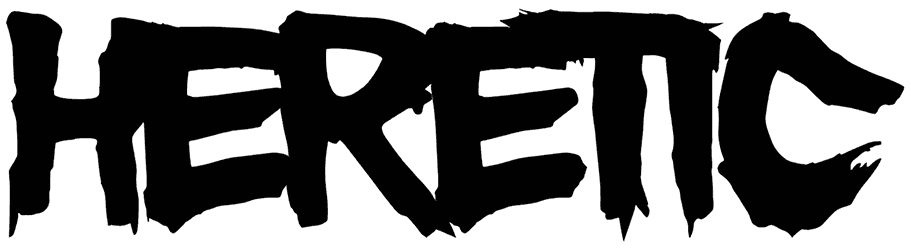
Heretic Font
Here we come again with a timeless horror font the same as the Heretic that comes with chunky and wavy letters. This font brings a vibe of dynamic, fear, dread, or vivacity to your editorial projects and makes them look…
Here we come again with a timeless horror font the same as the Heretic that comes with chunky and wavy letters. This font brings a vibe of dynamic, fear, dread, or vivacity to your editorial projects and makes them look more appealing to the audience.
Aside from the lack of lowercase letters and numbers, this hardcore font looks perfect for any kind of graphic content like stickers, branding, digital banners, or social media posts.